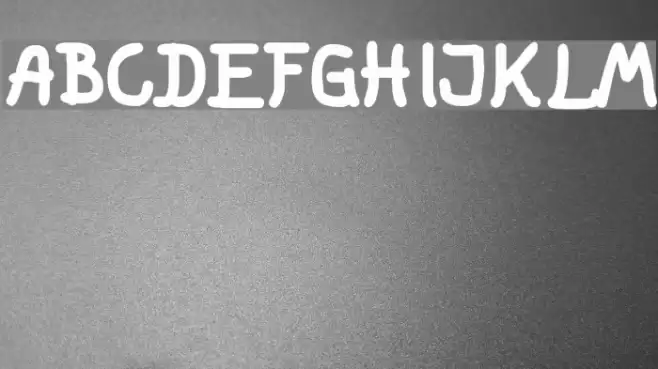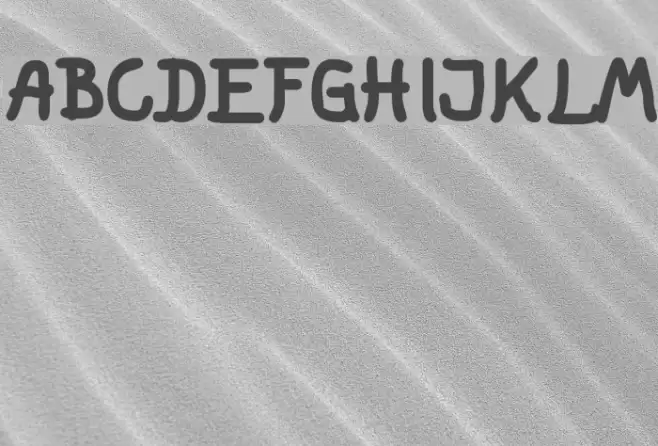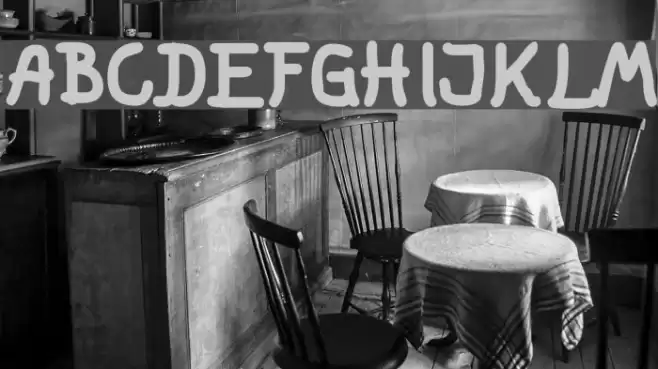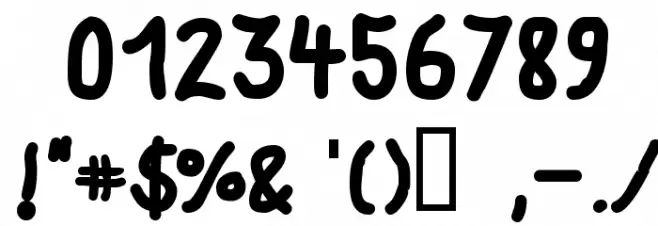
fat marker Font
fat marker Description
This font exudes a playful and casual vibe, reminiscent of handwriting with a bold marker. The characters are rounded and thick, giving them a friendly and approachable appearance. The strokes are consistent in width, providing a uniform look across all letters and numbers. The uppercase letters are slightly taller than the lowercase, maintaining a balance that enhances readability. The font includes a full set of numerals and a variety of special characters, making it versatile for different uses. Its informal style makes it ideal for projects that require a personal touch or a relaxed atmosphere.
A playful, bold, handwritten-style font with rounded, consistent strokes from Uncategorized fonts.
- Proposed Projects: Ideal for children's books, casual invitations, posters, and creative branding projects.
- Overall Style: Casual, Playful
- Use Case: Headlines, Posters, Informal Text